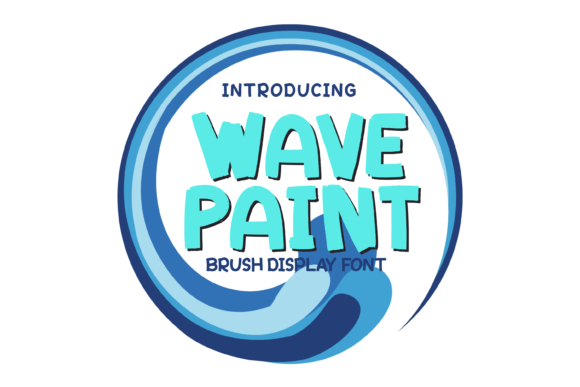
Embark on an artistic voyage with Wave Paint, the captivating display font that transforms your digital creations into masterpieces. Its brush texture evokes a sense of authenticity, adding a touch of charm to your designs. Dive into a world of unlimited possibilities, where stickers, cards, wall art, and t-shirt designs come alive with a unique, hand-crafted flair. Unleash your imagination and let your designs flourish.
With Wave Paint, you hold the key to unlocking a treasure trove of creative expression. Its versatile nature allows you to seamlessly navigate various design landscapes, from whimsical stickers to heartfelt cards, from captivating wall art to eye-catching t-shirts. The possibilities are boundless, inviting you to explore the depths of your imagination and manifest your visions into tangible works of art.
More than just a font, Wave Paint is an artistic gateway, a portal to a realm where creativity knows no limits. Embrace the allure of its brush strokes, the subtle nuances that add depth and character to your designs. Allow Wave Paint to ignite your passion, fuel your inspiration, and transform your designs into breathtaking masterpieces that captivate and inspire.